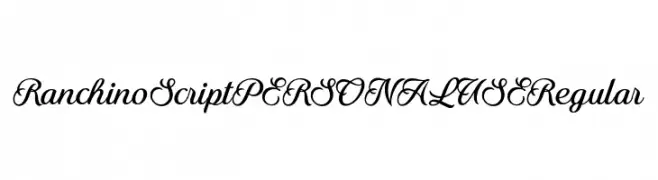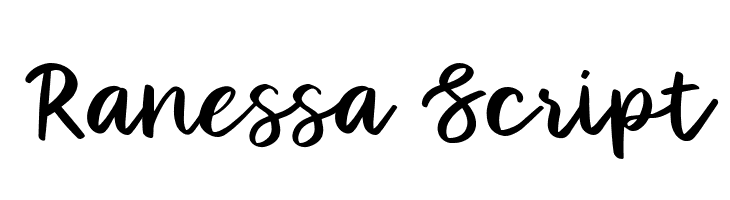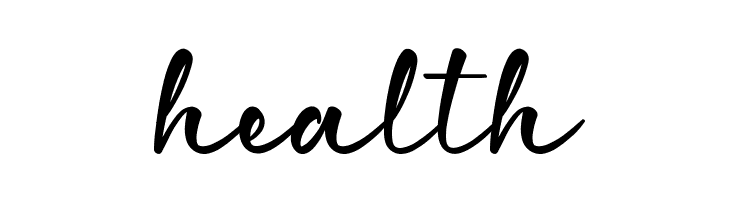
A bold, hand-drawn font with a textured, rustic appearance.
A rugged, hand-drawn font with a textured, distressed appearance.
A bold, playful font with a hand-drawn, cursive style.
An elegant and ornate script font with flowing, interconnected letters and graceful flourishes.
A bold, hand-drawn font with a brush-like texture and dynamic style.
A flowing, elegant script font with a modern calligraphic style.
A bold, elegant script font with high contrast and flowing, interconnected characters.
A bold, cursive script font with a playful and energetic style.
A bold, elegant script font with sweeping strokes and decorative flourishes.
An elegant script font with flowing, cursive letterforms and a classic style.